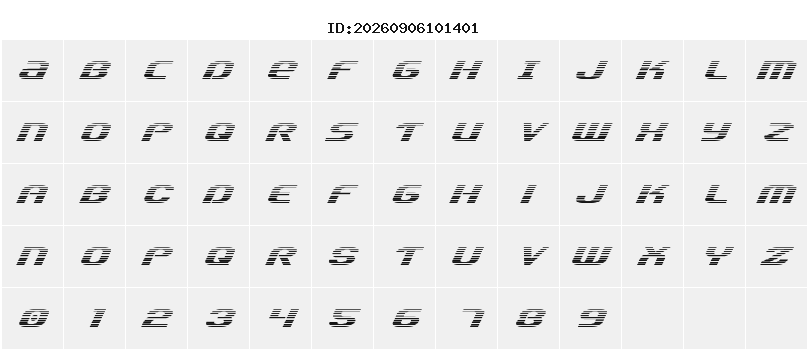
• Font Name: Team America Gradient
About Team America Gradient.ttf
Team America Gradient.ttf is a modern, elegant sans-serif font designed for ultimate readability and visual harmony. Perfect for branding, headlines, web design, and print materials.